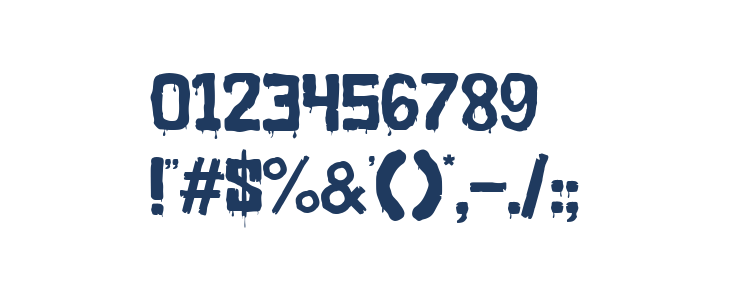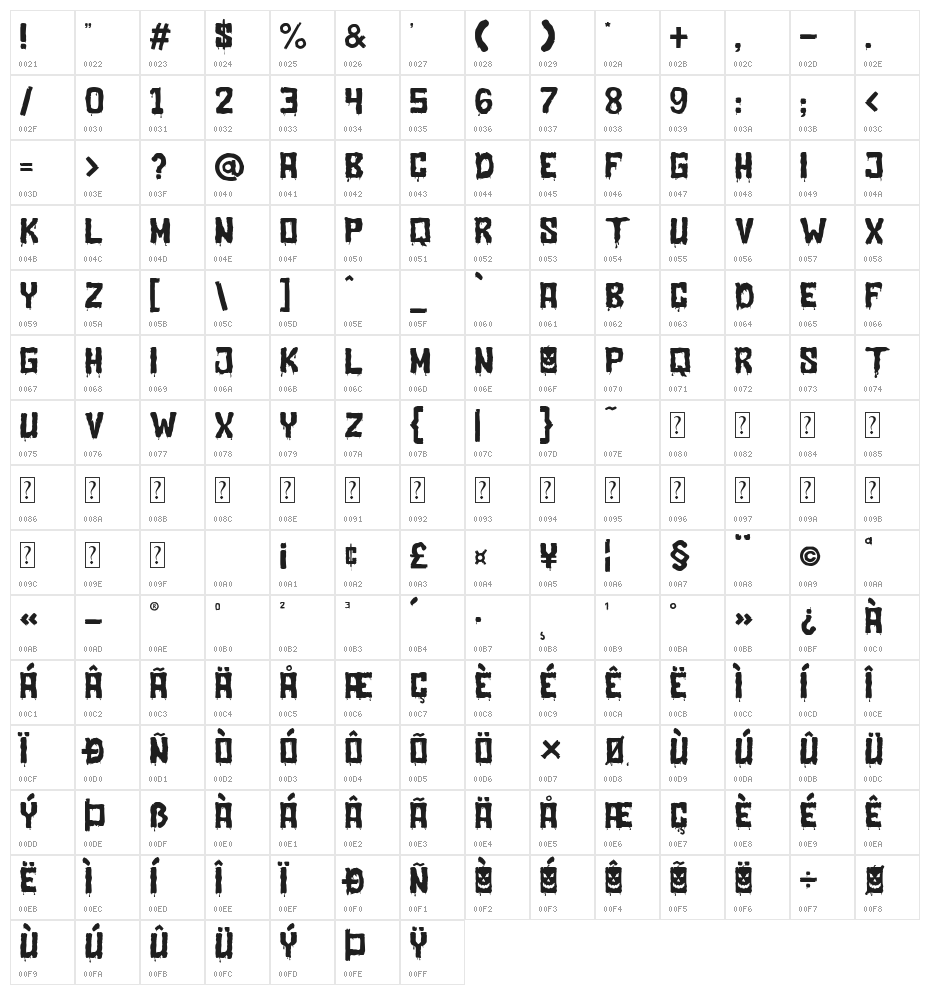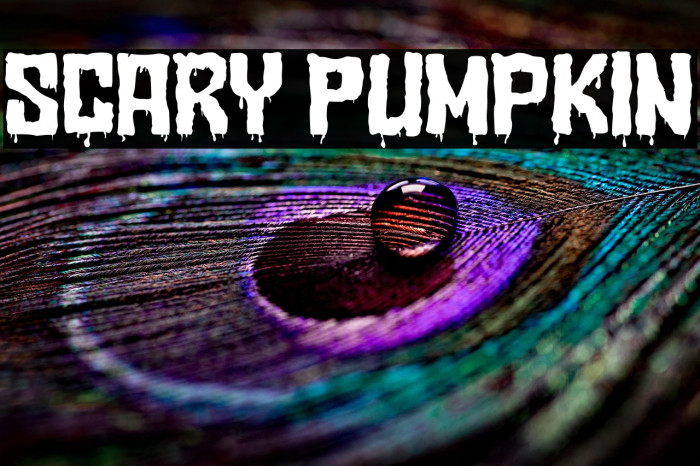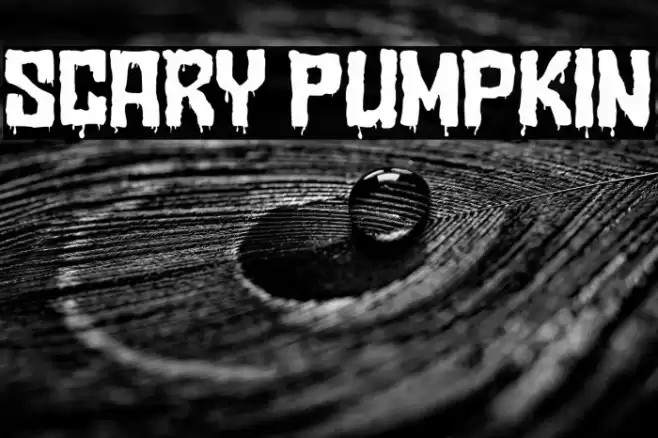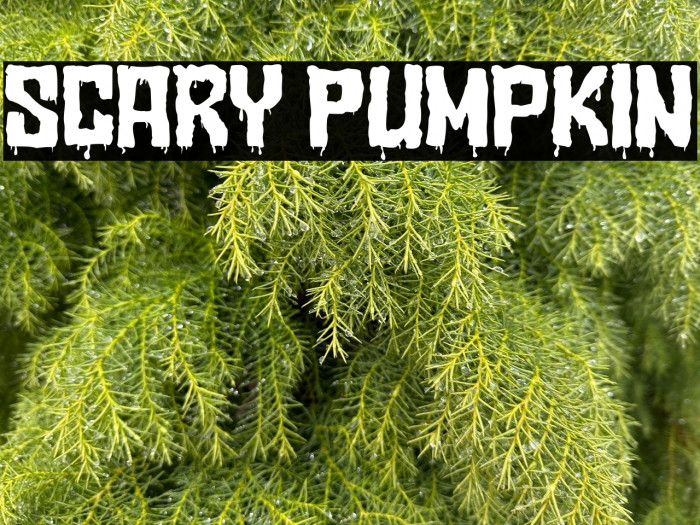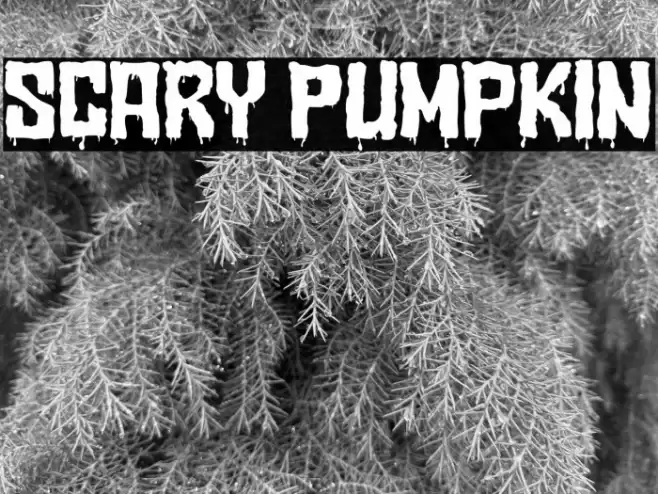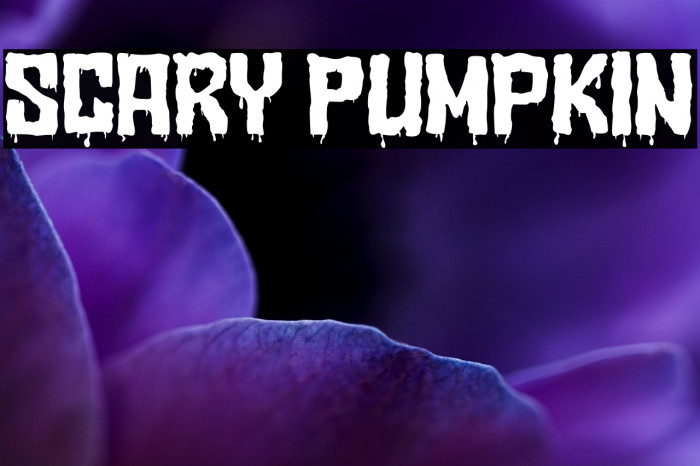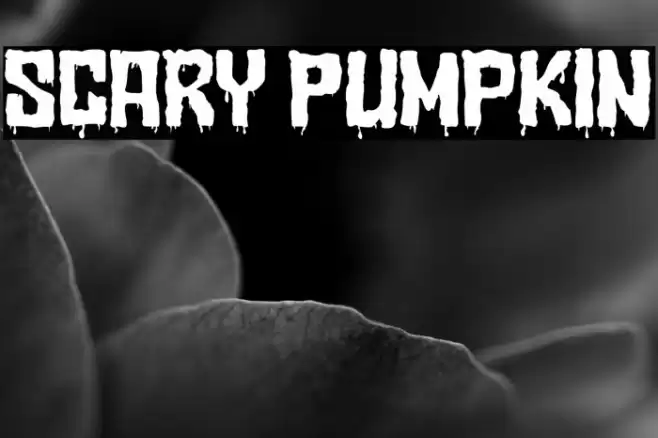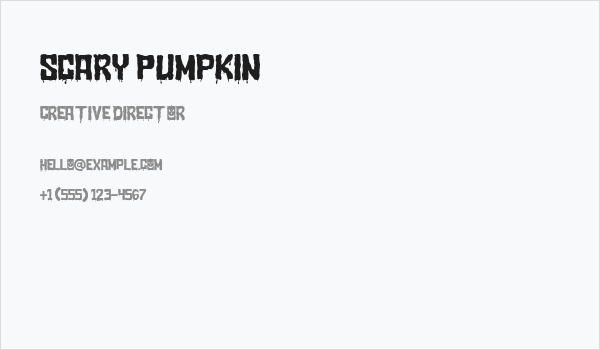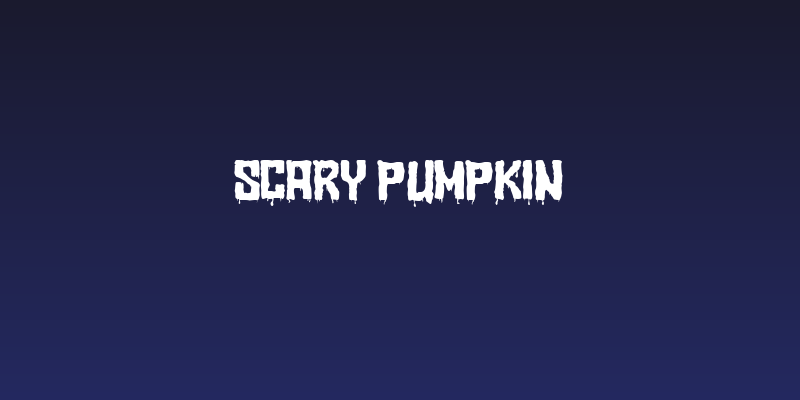
Scary Pumpkin Font
Scary Pumpkin Description
This font features a spooky, dripping design reminiscent of melting wax or oozing slime, perfect for Halloween-themed projects. The characters have a bold, irregular outline that gives them a haunting appearance, with each letter appearing as if it's slowly melting away. The uppercase and lowercase letters maintain a consistent style, enhancing the eerie effect. Numbers and special characters are equally stylized, ensuring a cohesive look across all text elements. The font's unique design makes it ideal for creating eye-catching headlines or titles that need a touch of horror or mystery.
| Proposed Projects | Perfect for Halloween invitations, horror movie posters, themed party decorations, and spooky social media graphics. |